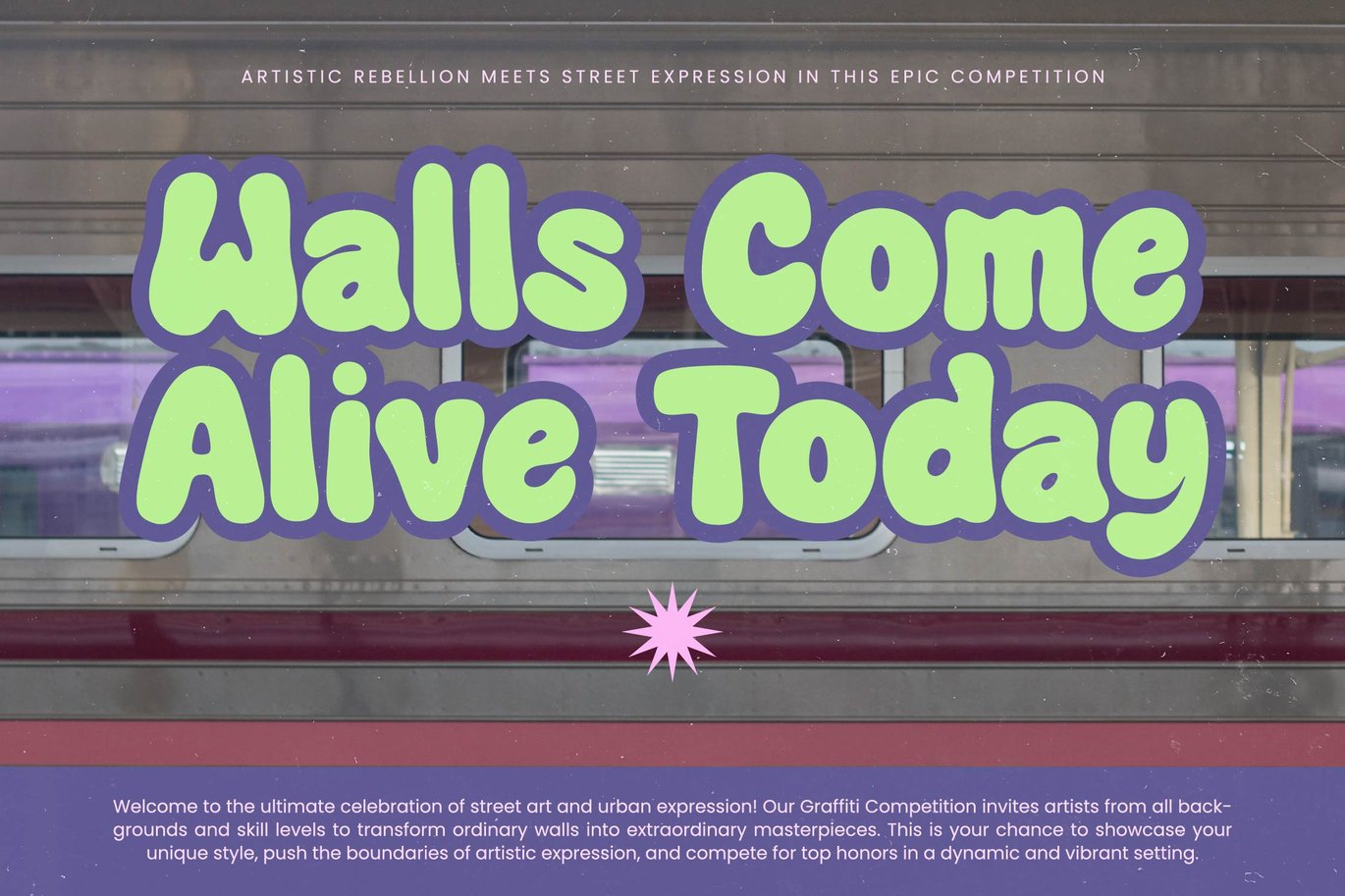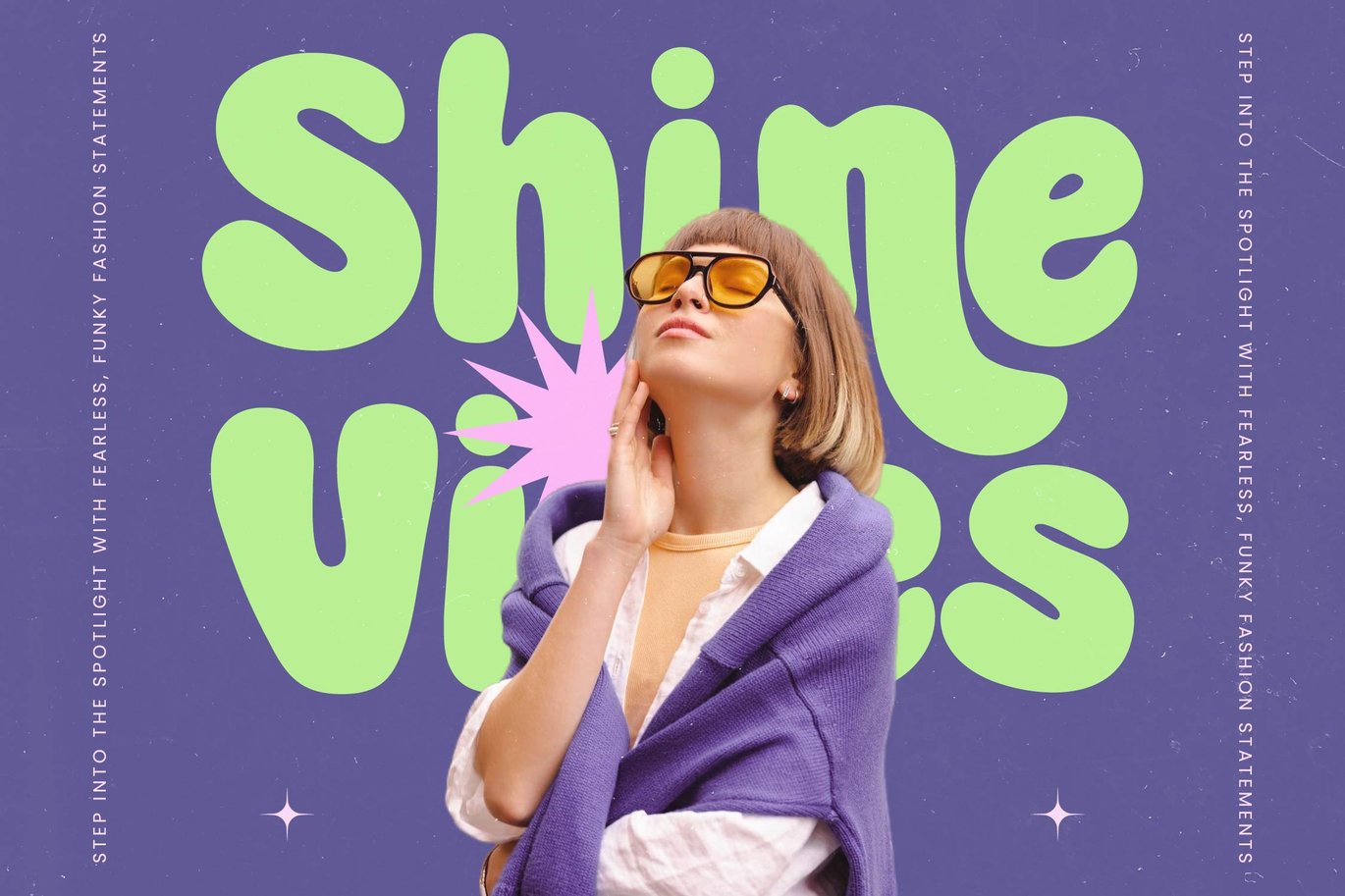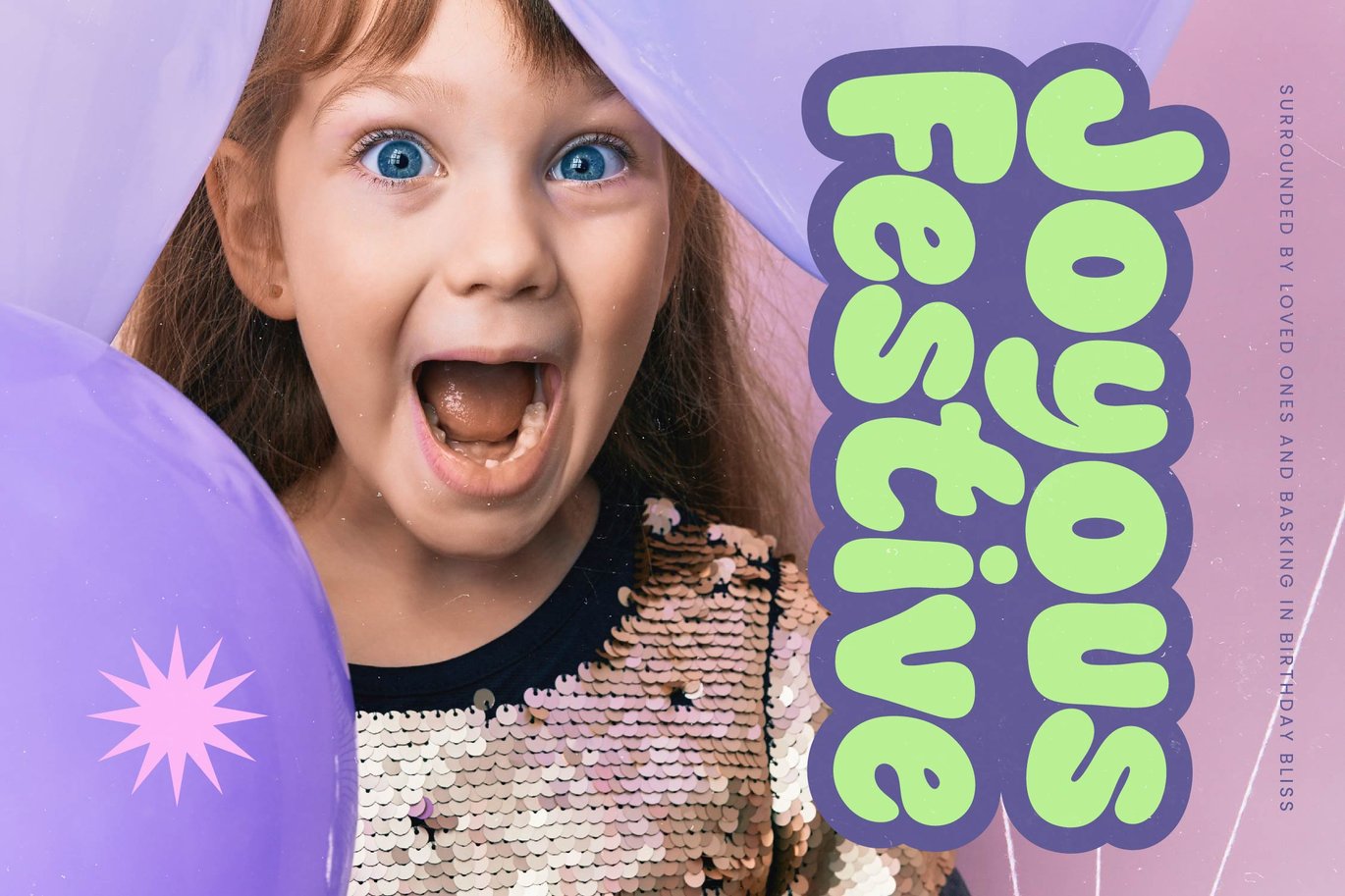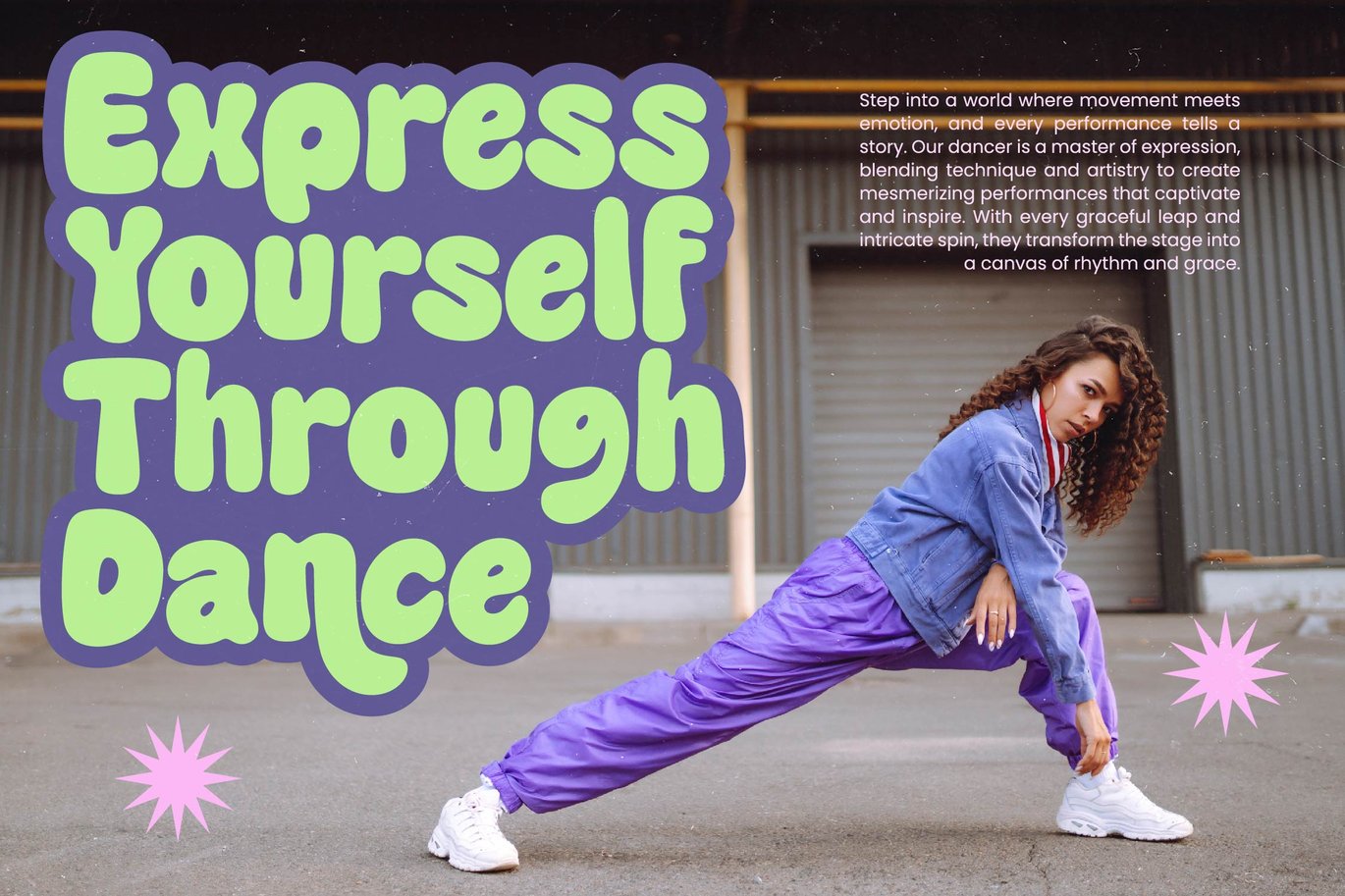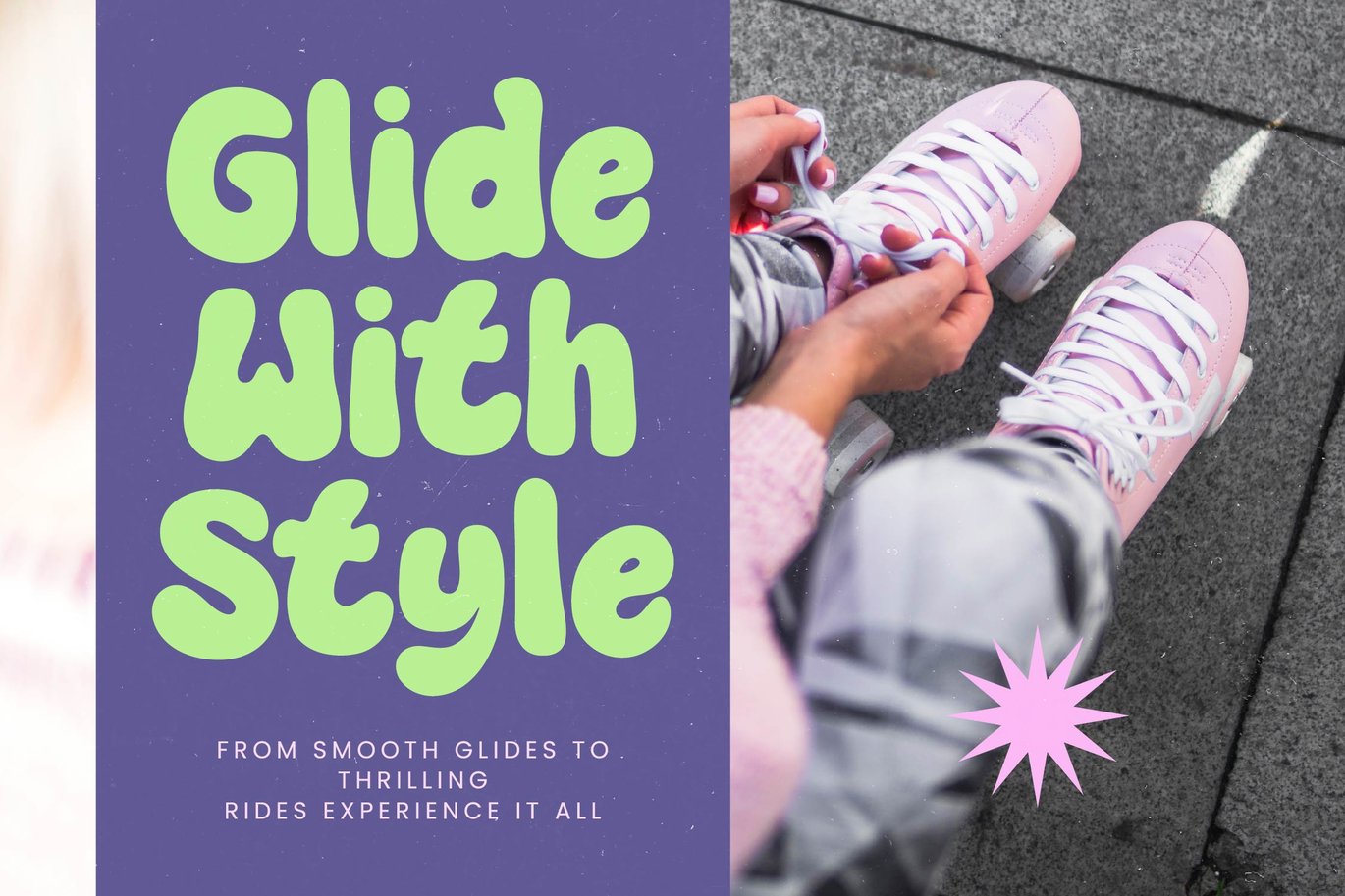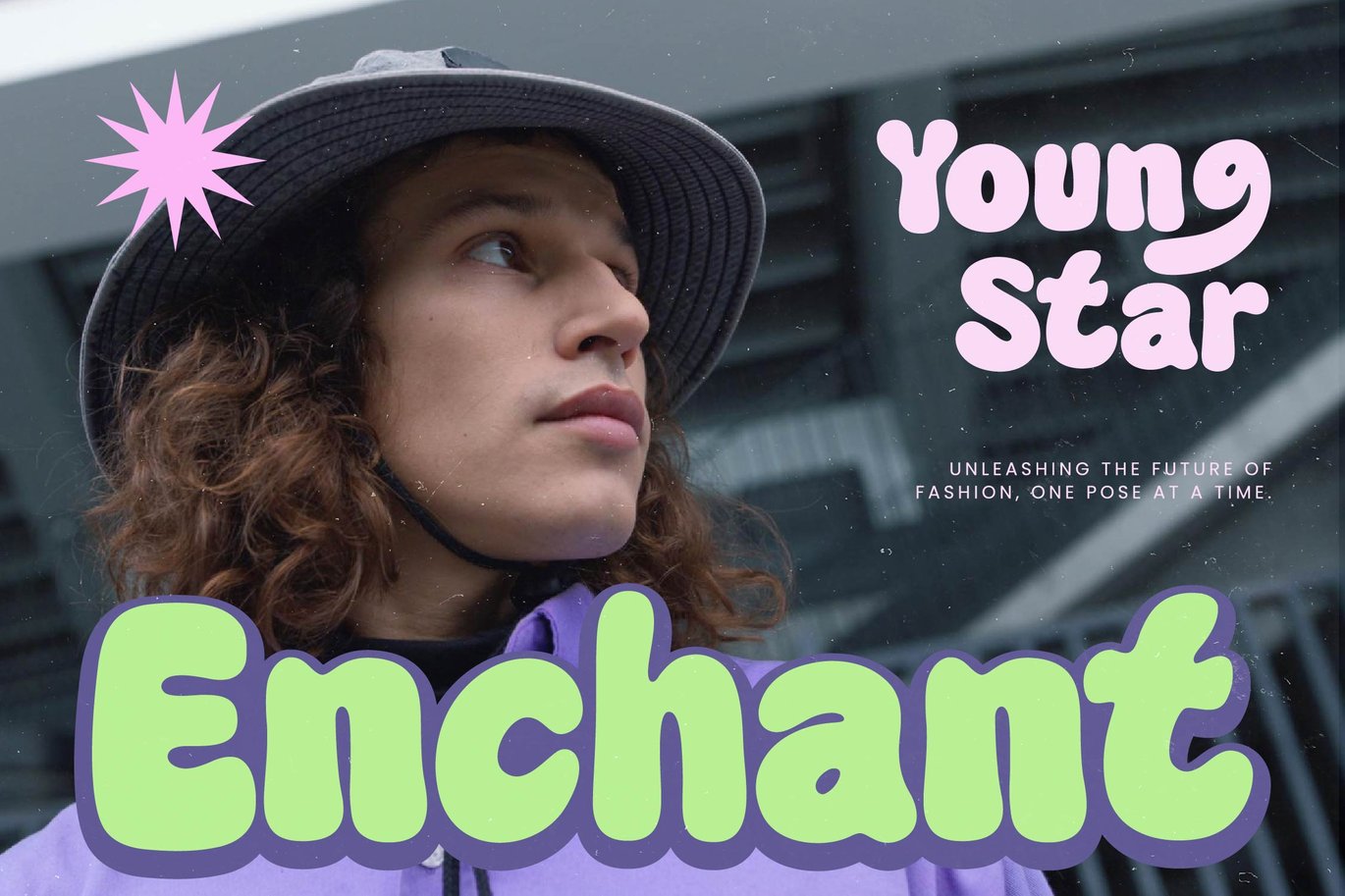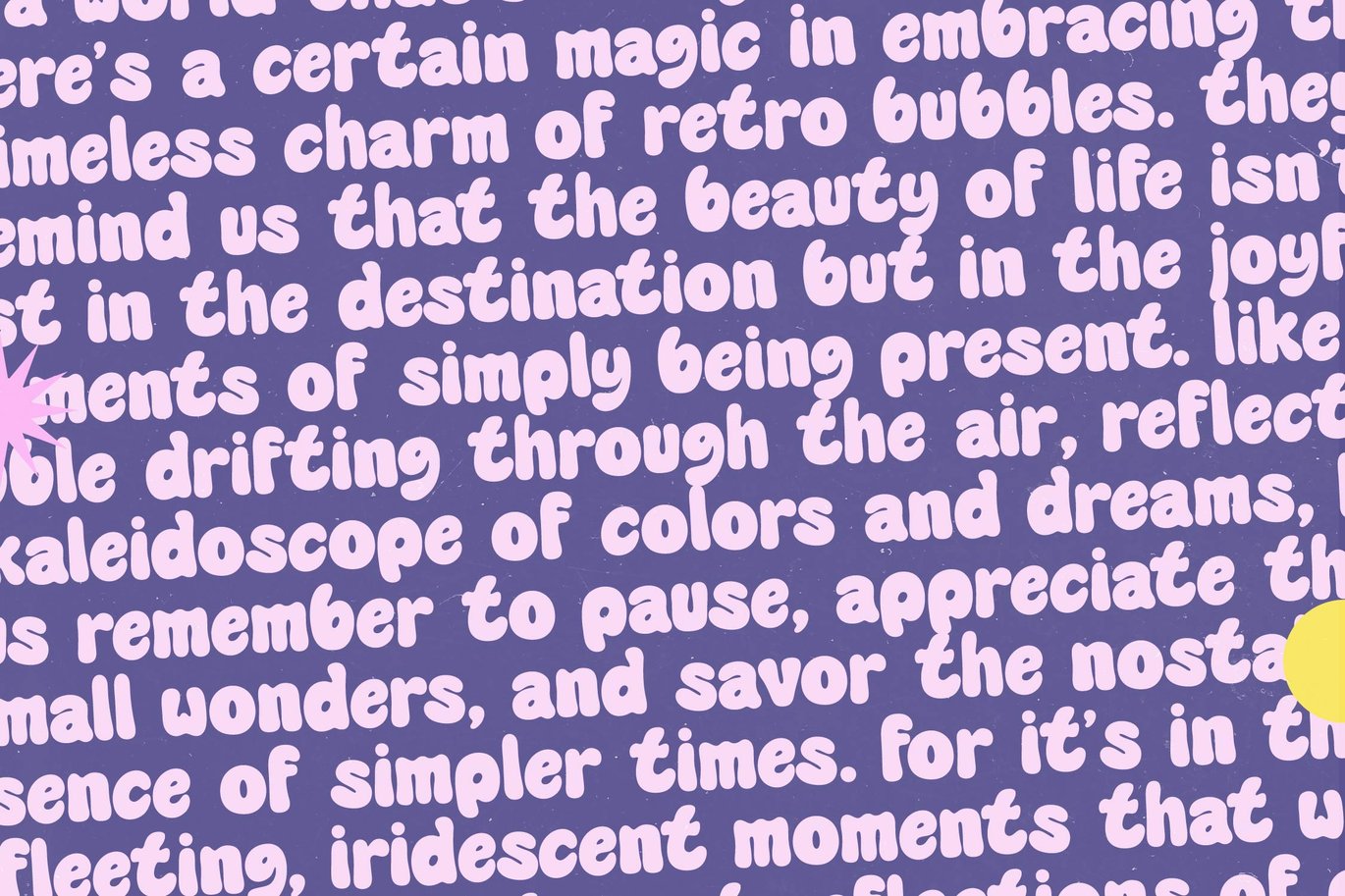
Funky Glitz - Retro Bubble Display
Funky Glitz is a retro bubble display font bursting with playful energy and bold character. With 2 ligatures and 33 alternates, this typeface brings the fun-loving spirit of the 70s and 80s into modern design — perfect for posters, social media, packaging, and branding that needs a touch of nostalgia and joy.
Its rounded, bubbly forms and smooth edges create a friendly, approachable look while maintaining strong readability. Designed to stand out with personality, Funky Glitz is ideal for creatives who want to capture vibrant retro aesthetics in a fresh, trendy way.